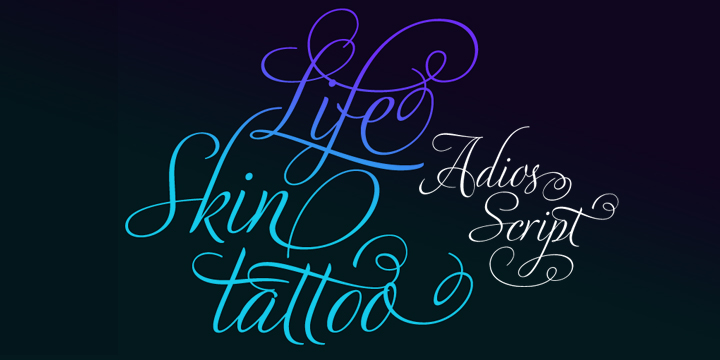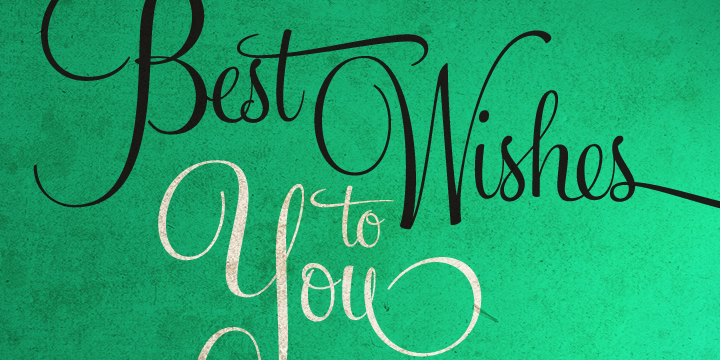
Gratitude script
gratitude script font
Gratitude Script font is your No. 1 option for those special days when you’re feeling thankful and touched; it is possibly the most aptly named font and the best choice for greeting cards or wedding invitations, stationary. This OpenType font includes over 1400 glyphs, ligatures, alternates, endings, and a set of ornaments designed for weddings … Read more
Feel Script
Feel Script font
Feel Script is an eye catching typography based on lettering fashioned by Rand Holub, the renowned calligrapher and logo designer. He actually created this lettering for Intertype for his face Monterey. Luckily, Intertype does not have the kind of technological limitations today that it had some years back. The lettering by Holub is presented in … Read more
Poem Script
Poem Script is a miscellaneous compilation of interpretations that artifice a late nineteenth century American pen script style. This is not a typical Italian letterform but the style is referred to as the “Italian Alphabet” stalking from an old penman’s term for an alphabet. Here, the major stress or shades are completely opposite to their … Read more
Business Penmanship
Business Penmanship, the state of the art typeface is certainly an elegy to the business handwriting emerging right from the era when penmanship was a highly-valued and inseparable part of business education and practice.The eye catching typefaceis a single feature-rich font that includes more than 1100 characters, alternates, covering ligatures, a large set of beginning … Read more
Adios Script
Adios Script  typeface is known to be quite romantic and decorative of those introduced by renowned designer Alejandro Paul. It is also referred to as the most elaborate and technically refined typefaces till date. The typeface is inspired by designs in the lines of “how-to” trade lettering guides from the era of 1940s. Its formal … Read more
Sugar Pie
Sugar Pie was designed by Alejandro Paul.  Sugar Pie font t have at the base Candy Script, that is a normal font.  This font is  called  Sugar Pie because it has a sweet taste, quite similar to Candy Script, mostly because of its round-to-sharp terminal concept. Get Sugar Pie  font on MyFonts Sugar Pie font detail Foundry: Alejandro Paul Released: Jun 21, 2011 … Read more
Bellissima Script Pro
Bellissima Script Pro  font can be referred to as the typeface having similar vein and spirit as Burgues and Compendium. However, the font still started with a unique thread as those fonts. It was initiated with Alex Trochut who liberally displayed beautiful lettering book from discreet library of in the year 1844.The Latin calligraphy pioneers introduced … Read more